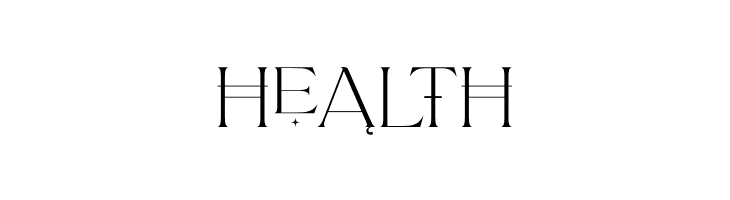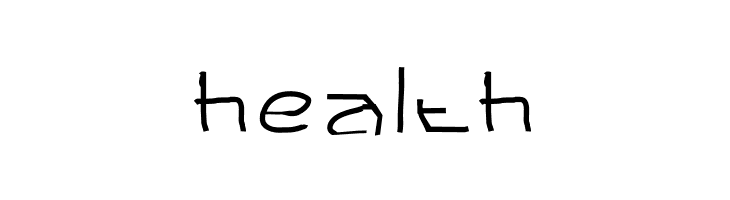
A flowing, cursive script font with elegant, interconnected characters.
A classic serif font with an artistic, hand-drawn quality.
A playful, hand-drawn font with irregular strokes and a casual style.
An elegant script font with intricate swashes and a sophisticated, artistic style.
A playful and whimsical font with rounded, irregular letterforms.
A modern, elegant font with high contrast and decorative elements.
An elegant and artistic font with elongated letterforms and decorative elements.
A sophisticated cursive script with elegant, fluid lines.